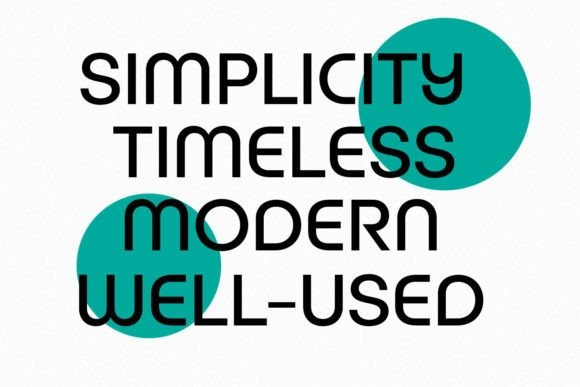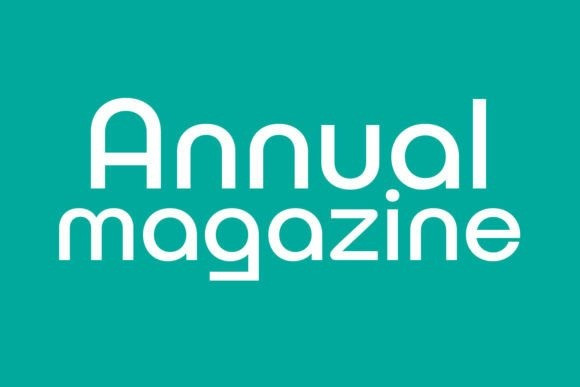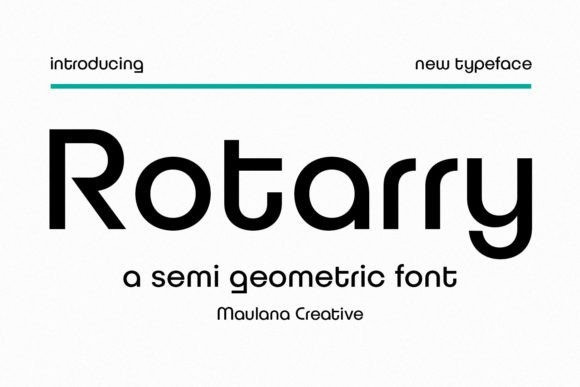
Rotarry Font
Rotarry Font is a Semi Geometric Font. Medium stroke, fun character with a bit of ligatures and alternates. To give you an extra creative work. Rotarry font support multilingual more than 100+ language. This font is good for logo design, Social media, Movie Titles, Books Titles, a short text even a long text letter and good for your secondary text font with script or serif. Make a stunning work with Rotarryfont.